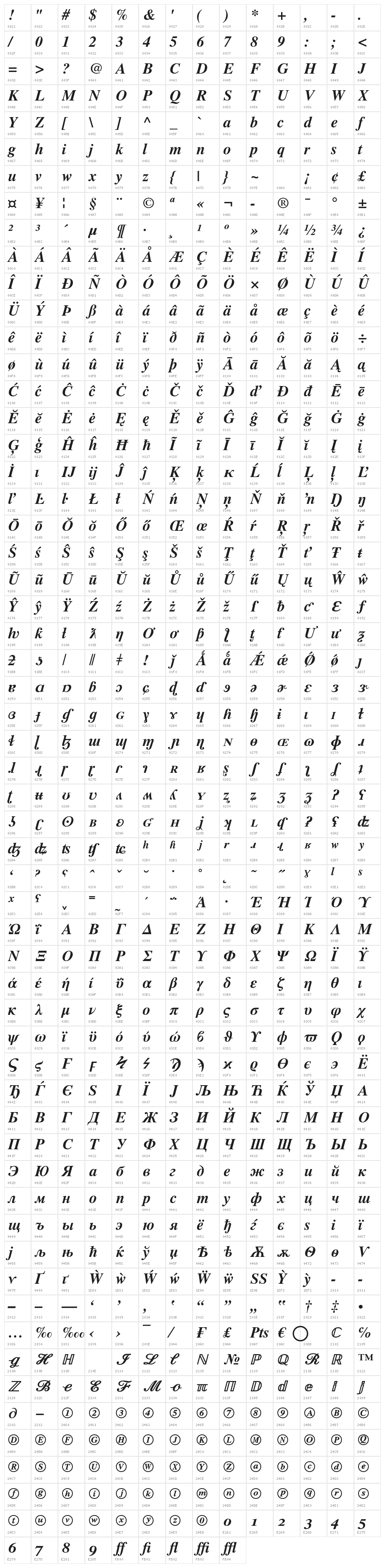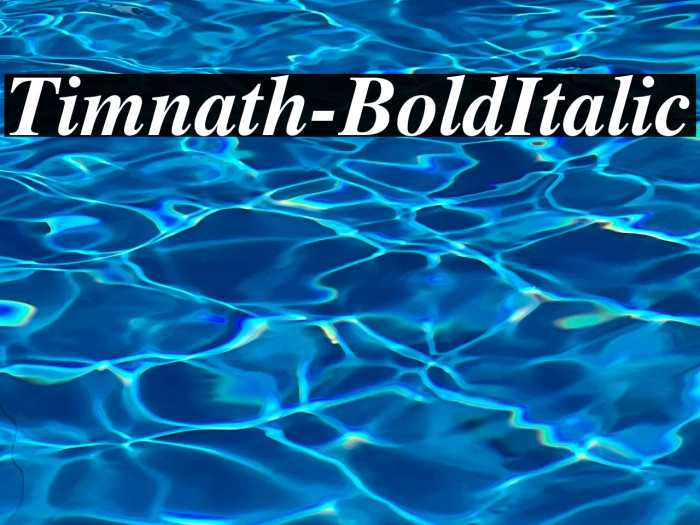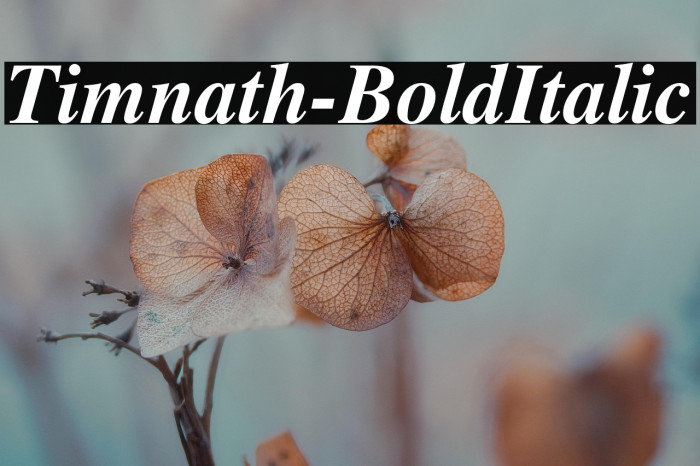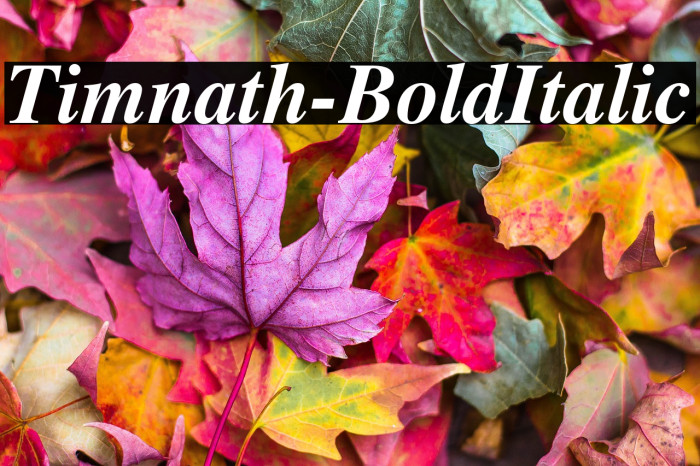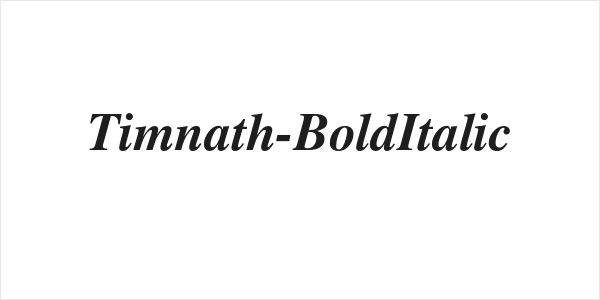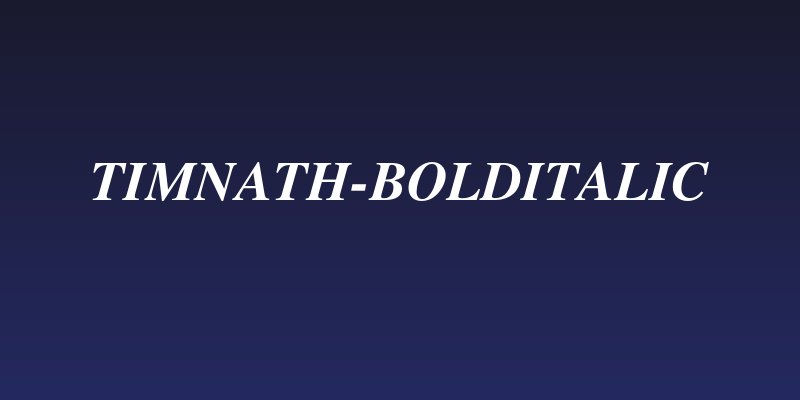
Timnath-BoldItalic Font
Timnath-BoldItalic Description
This font exudes a classic elegance with its bold and italicized style, making it stand out with a sophisticated flair. The characters are well-defined with smooth curves and sharp edges, providing a sense of authority and grace. The italic slant adds a dynamic touch, enhancing its visual appeal. The numerals and special characters maintain the same boldness and style, ensuring consistency across all elements. This font is versatile, suitable for both formal and creative applications, offering a timeless aesthetic that can elevate any design.
Classic roman typeface, modified and curated from the STIX Fonts (TM). Free for unlimited private and commercial use. SIL Open Font Licence (OFL) Version 1.1.
| Proposed Projects | Ideal for branding, editorial design, luxury product packaging, and elegant invitations. |